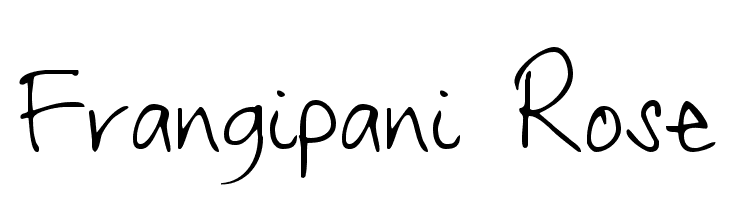
( Fonts by Kimberly Geswein - kimberlygeswein.com )
A playful and casual handwritten font with fluid, organic letterforms.
A bold, expressive handwritten font with dynamic brush strokes.
A bold, rounded font with smooth curves and a friendly appearance.
( Fonts by deFharo )
A modern, decorative font with characters enclosed in circles, offering a playful yet structured look.
( Hendra Pratama )
An elegant, flowing script font with smooth, continuous strokes.
( Fonts by Andris Csanyi )
A modern, rounded font with consistent stroke width and approachable design.
A playful, hand-drawn font with jagged edges and bold, irregular characters.
A classic serif font with elegant curves and a semi-bold weight.
( Fonts by Nico Muslib )
A playful, rounded font with smooth curves and a friendly appearance.
An elegant serif font with a classic italic style and high contrast.